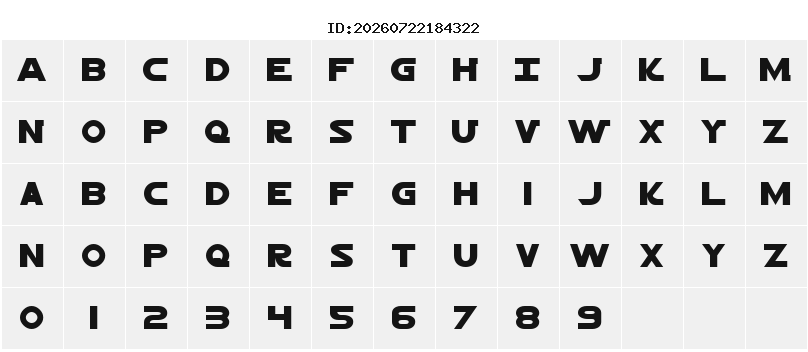
JI-Eolian Preview
• Font Name: JI-Eolian
• Full Font Name: JI-Eolian
• Designer: JupiterImages
About JI-Eolian.ttf
JI-Eolian.ttf is a modern, elegant sans-serif font designed for ultimate readability and visual harmony. Perfect for branding, headlines, web design, and print materials.